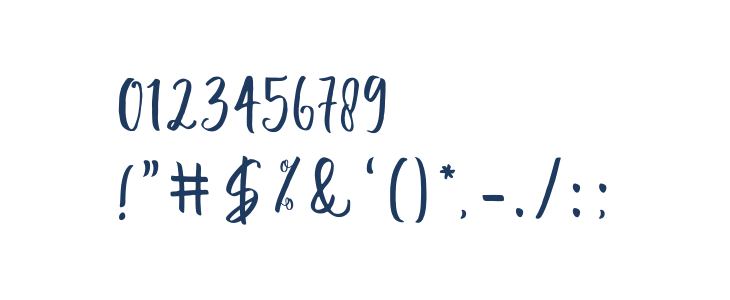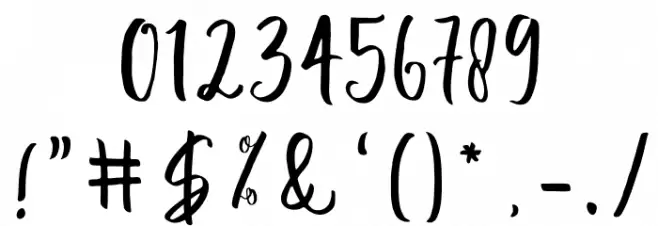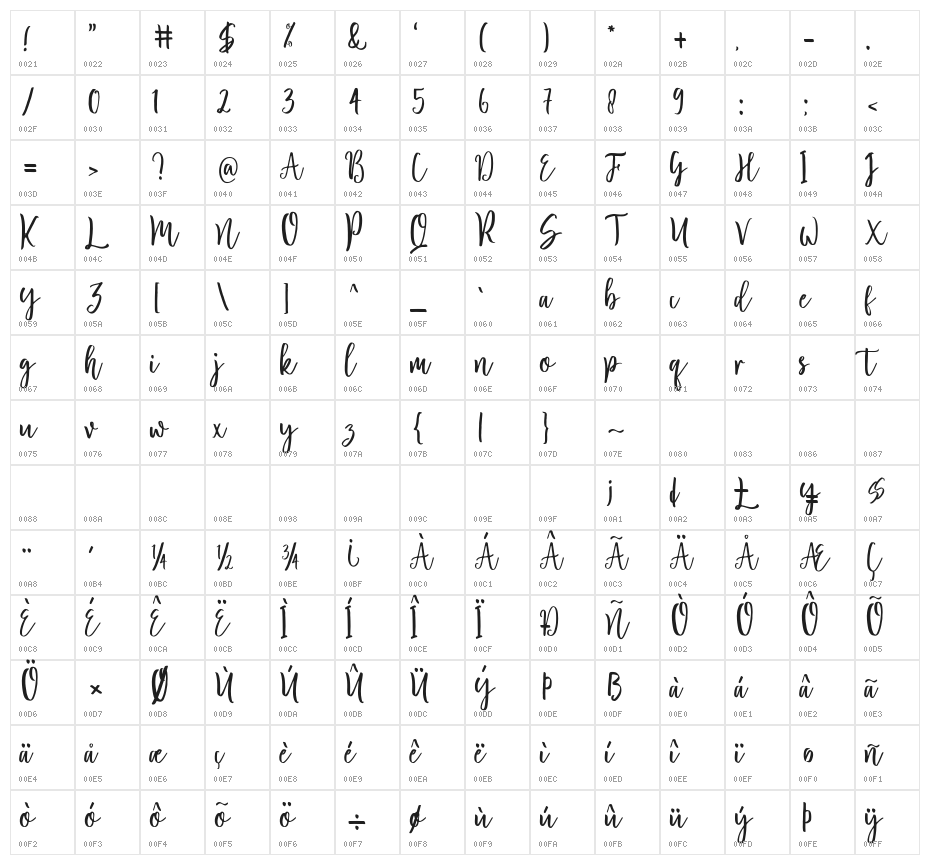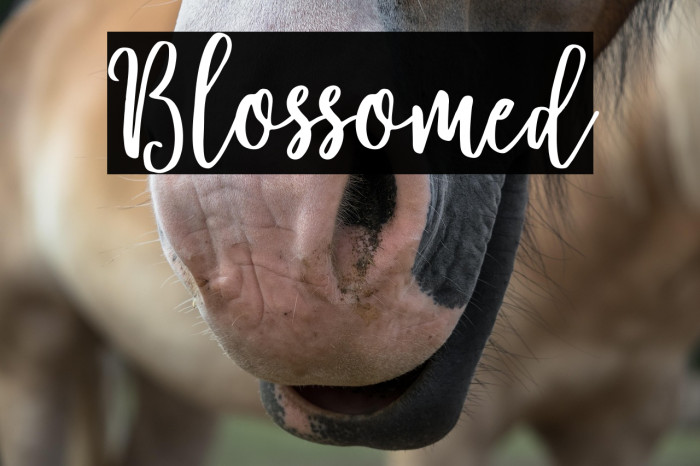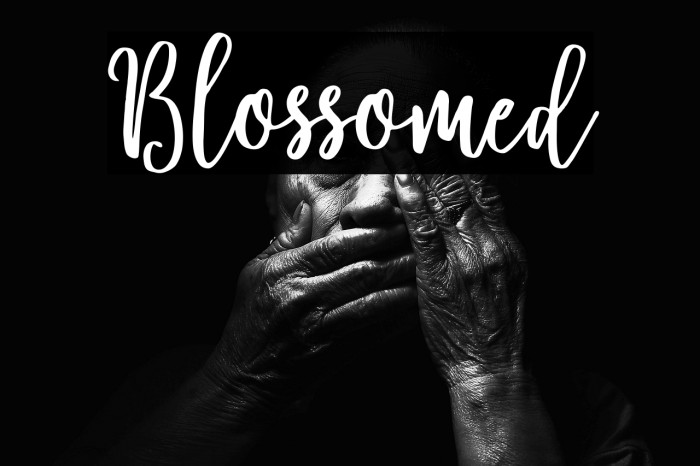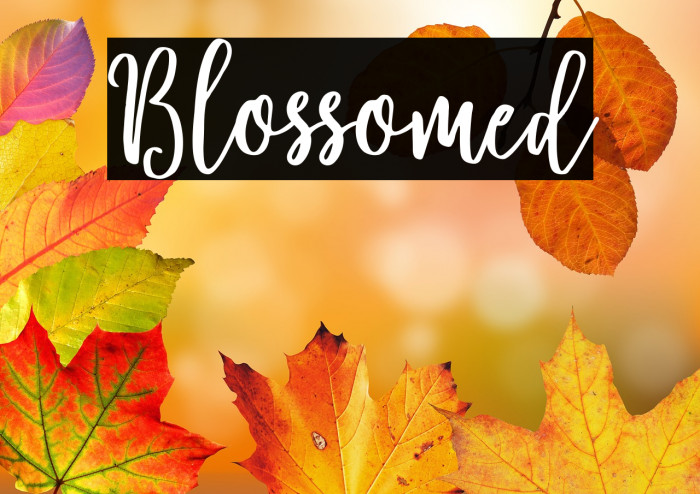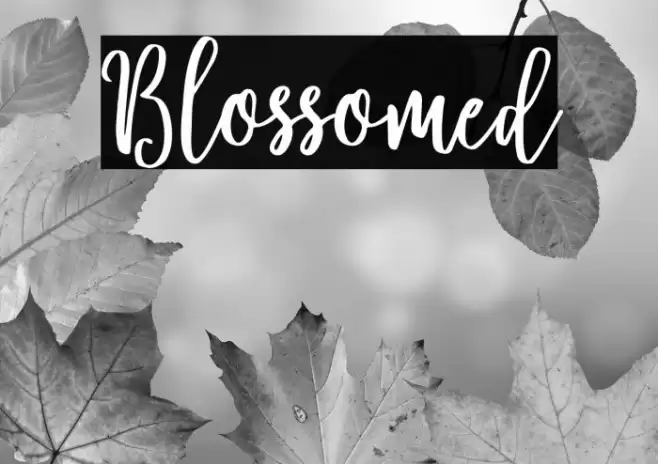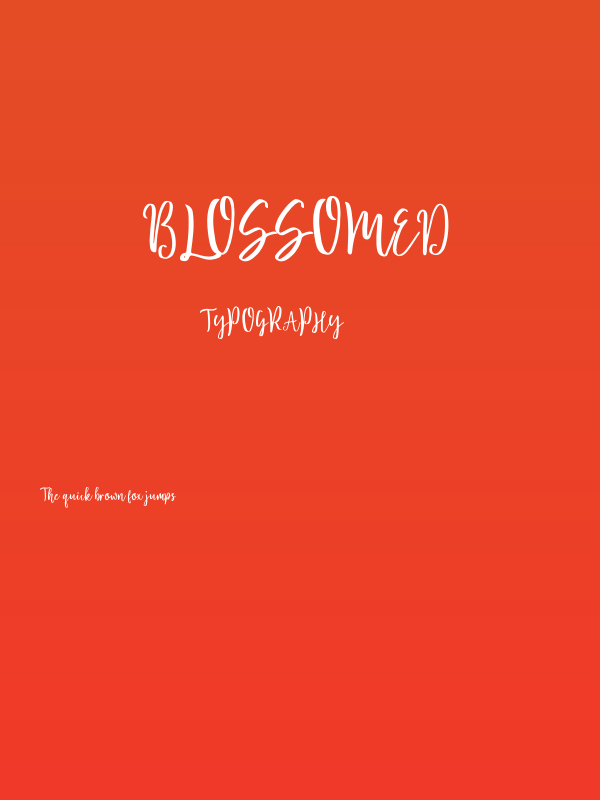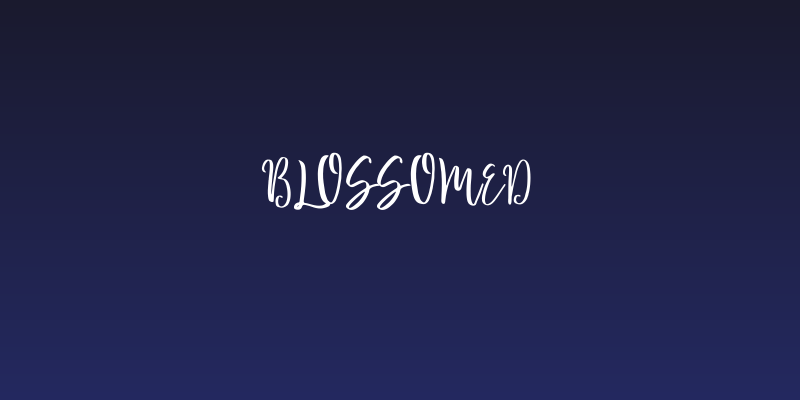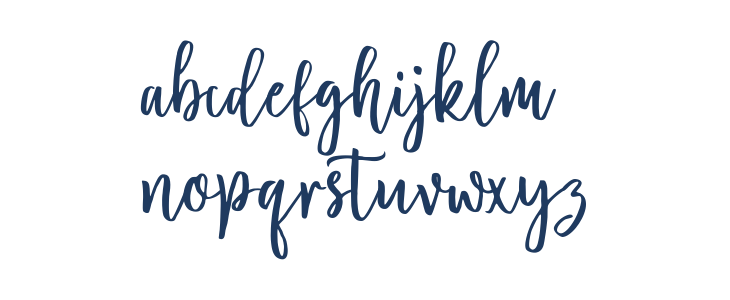
Blossomed Font
Blossomed Description
This font exhibits a lively and expressive handwritten style, characterized by its fluid and dynamic strokes. The letters are connected in a cursive manner, giving it a natural and organic feel. The uppercase letters are bold and prominent, while the lowercase letters maintain a consistent flow, enhancing readability. Numbers and special characters are crafted with the same attention to detail, ensuring uniformity across the typeface. The overall appearance is both elegant and playful, making it suitable for creative and artistic projects.
| Proposed Projects | Ideal for wedding invitations, greeting cards, personal branding, and artistic posters. |